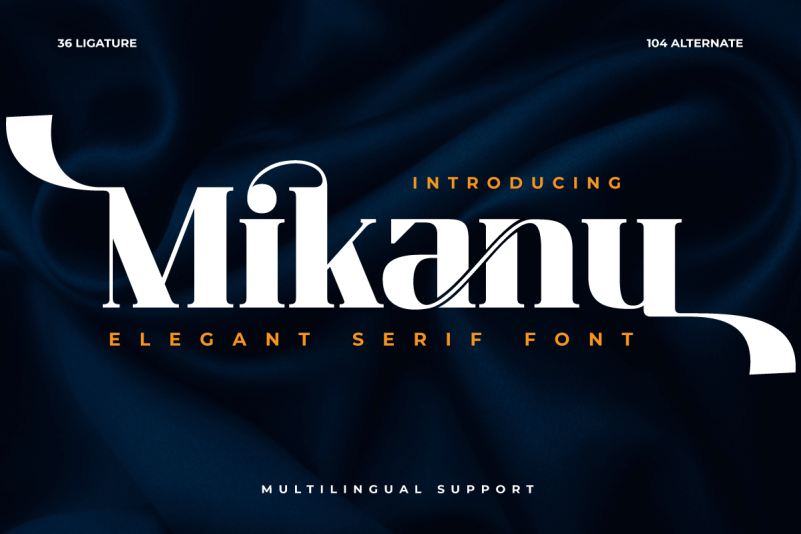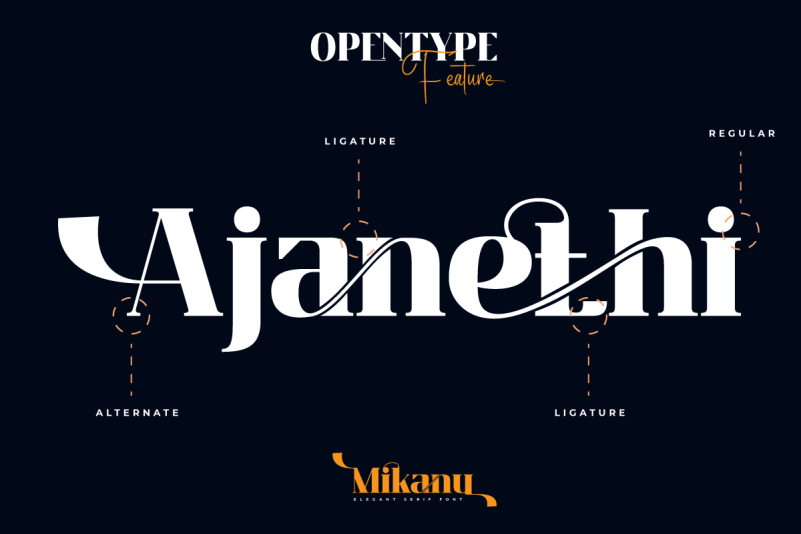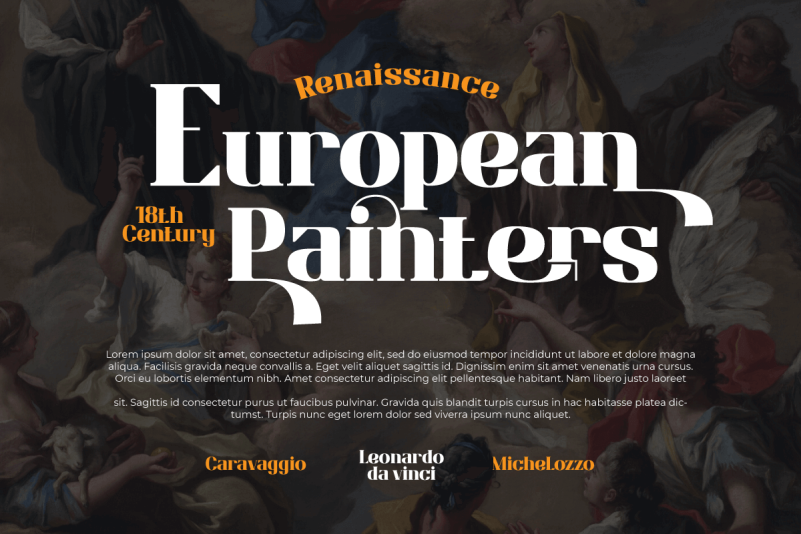
Mikanu Font
Mikanu Font is ideal for projects with a classic modernism serif vibe. This font’s exquisite and refined features can bring a touch of sophistication to your designs. Mikanu includes complex features such as ligatures and alternates to make your text more intriguing and unique.
Not only that, but the Mikanu typeface supports multilingualism, allowing it to be utilized in a variety of languages around the world. As a result, you can quickly modify this typeface for other projects.
By selecting Mikanu as the font for your project, you will receive a high-quality product that will enhance the visual message you want to portray. Use Mikanu right away to add aesthetic value to your design!